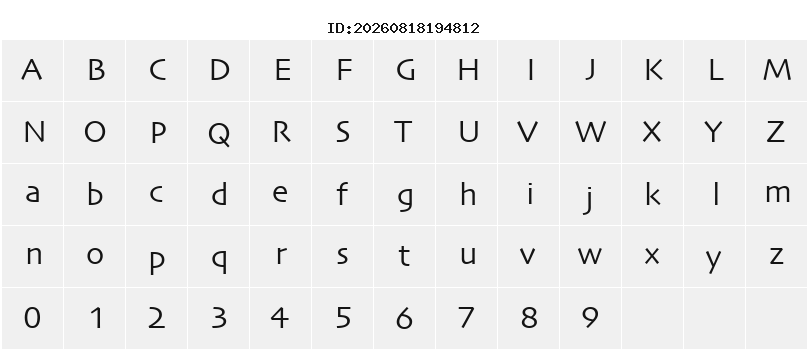
Skia Preview
• Font Name: Skia
• Font ID: Apple Computer Skia Regular
• Full Font Name: Skia Regular
• Version: 3.0
• PostScript Name: Skia-Regular
About Skia.ttf
Skia.ttf is a modern, elegant sans-serif font designed for ultimate readability and visual harmony. Perfect for branding, headlines, web design, and print materials.